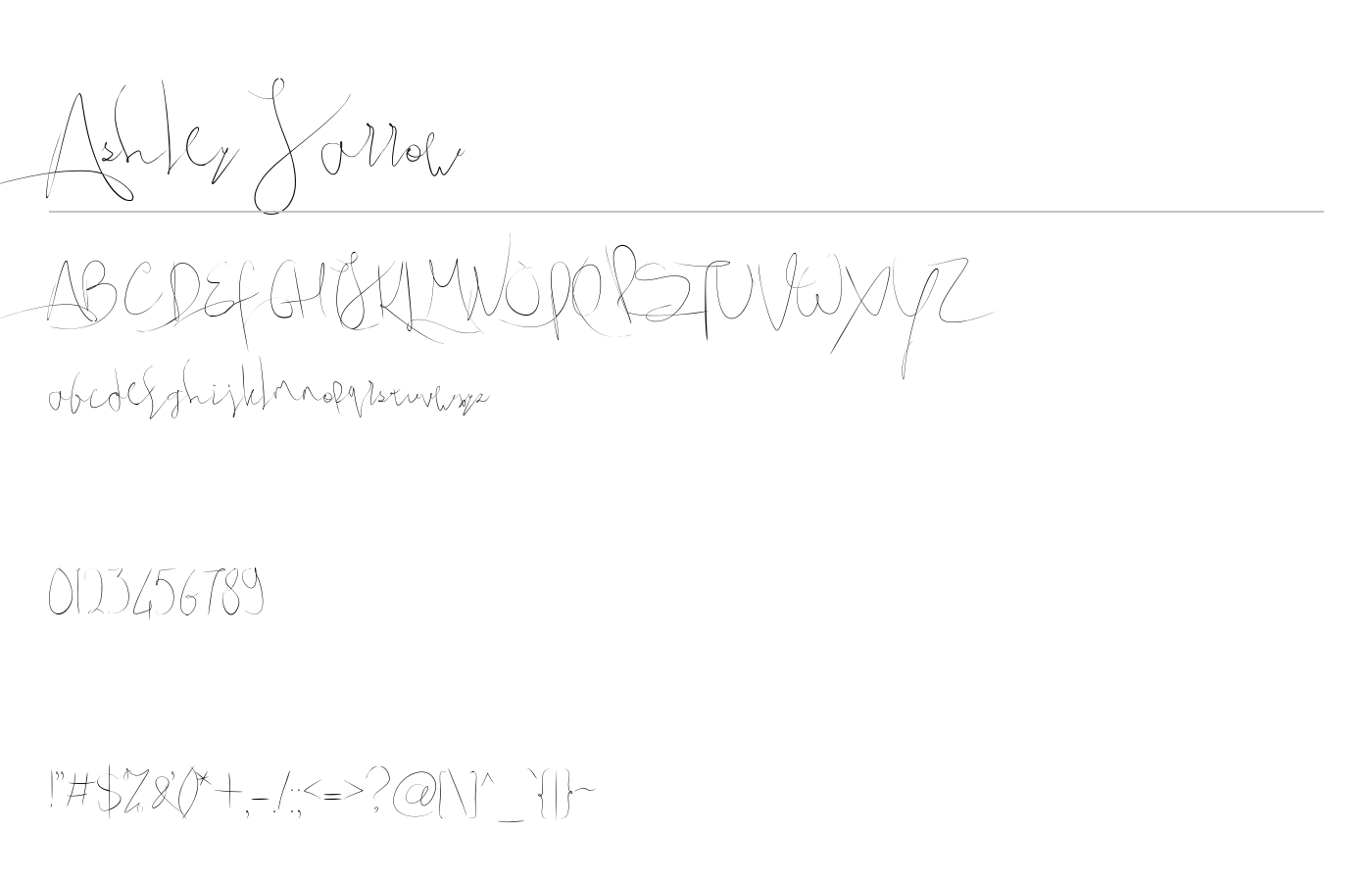
Ashley Jarrow is a delicate, hand-drawn script font with an airy and whimsical feel. Its extremely thin, flowing lines and irregular letterforms give it a natural, artistic touch, making it perfect for personal, creative projects or elegant branding that aims for a unique, heartfelt impression. This font shines in designs where a light, expressive handwriting style brings a sense of individuality and subtle sophistication.
| Font family | Ashley Jarrow Font |
| Designer | Rachma |